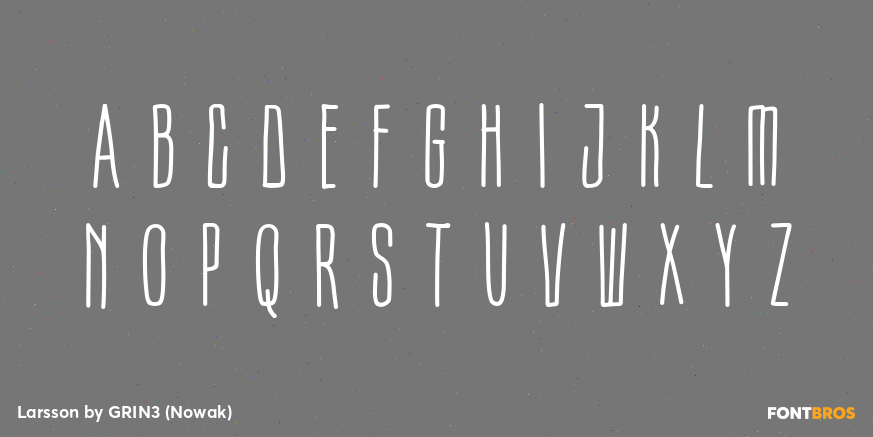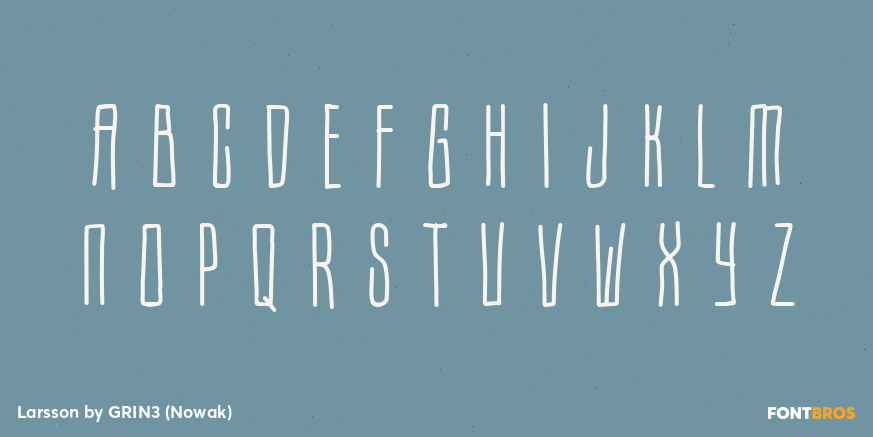
Larsson
Font Family by GRIN3 (Nowak)
Larsson is a hand-drawn, all-caps, ultra-narrow font created by Bartek Nowak.
It's contains two variations for each letter and a lot of ligatures.
Language support includes Western, Central and Eastern European character sets, as well as Baltic and Turkish languages.